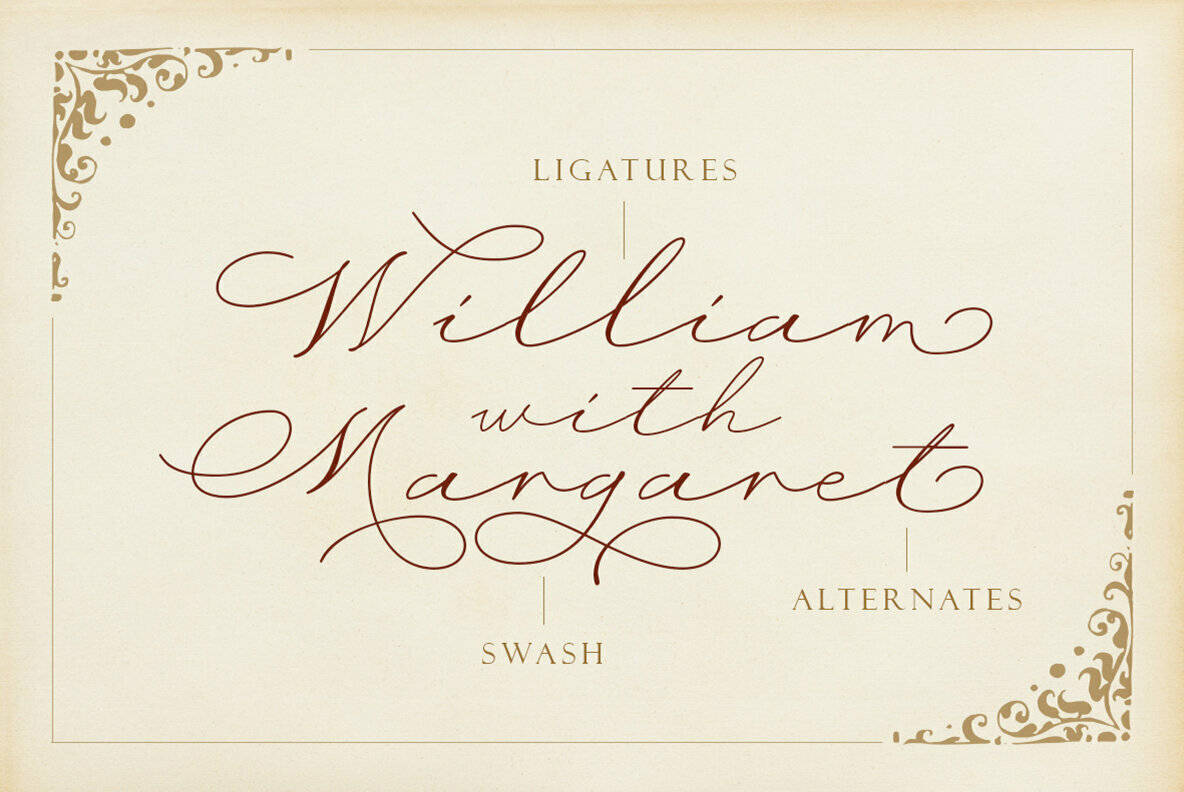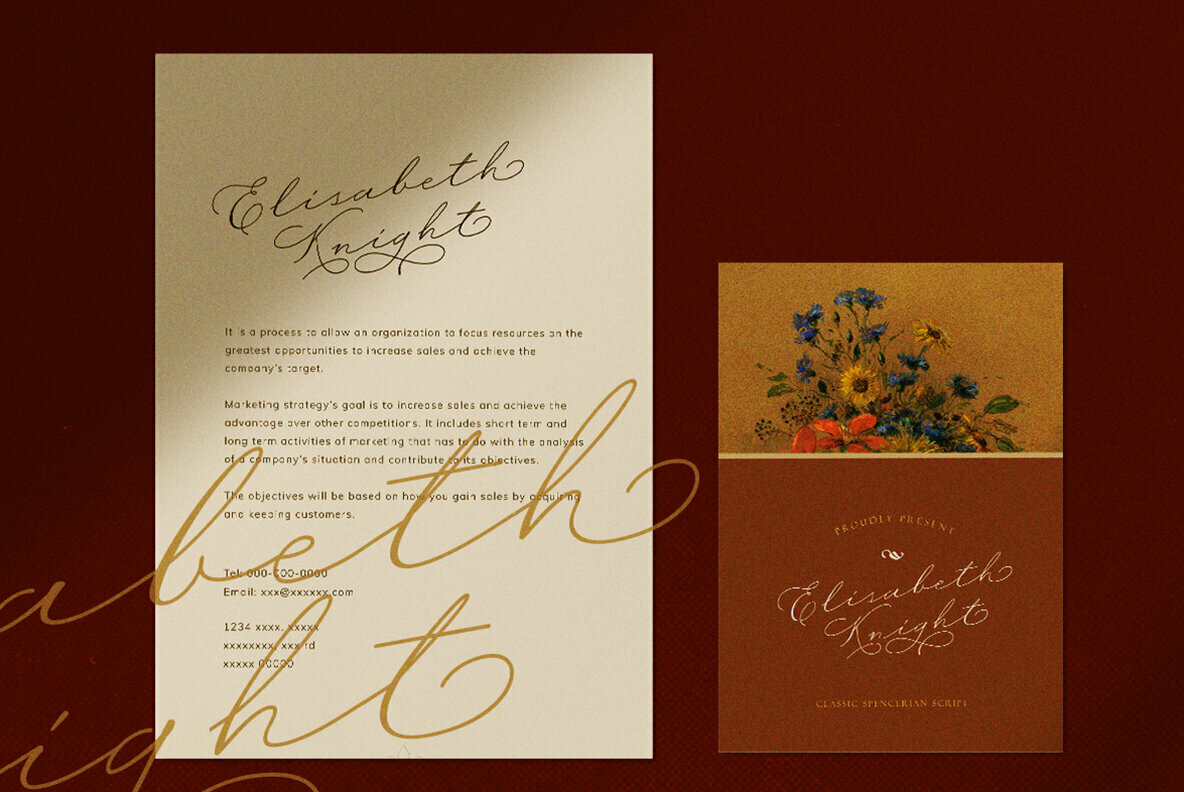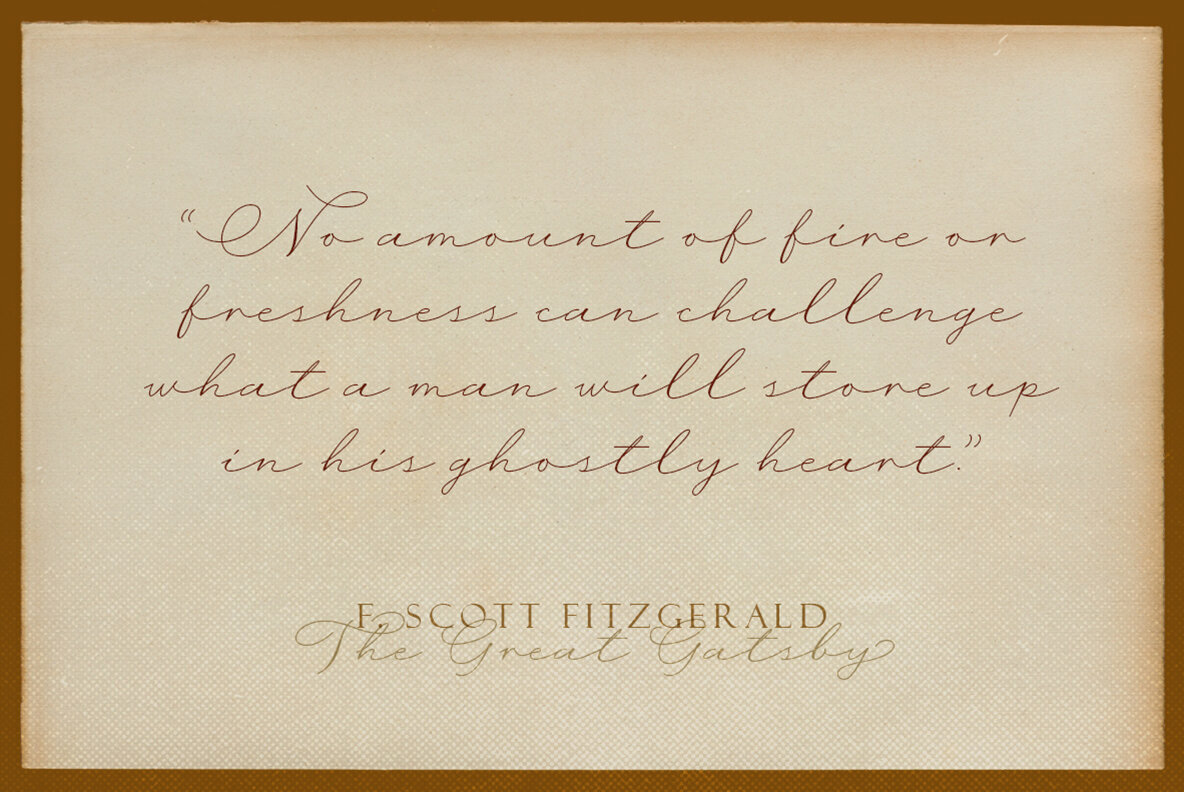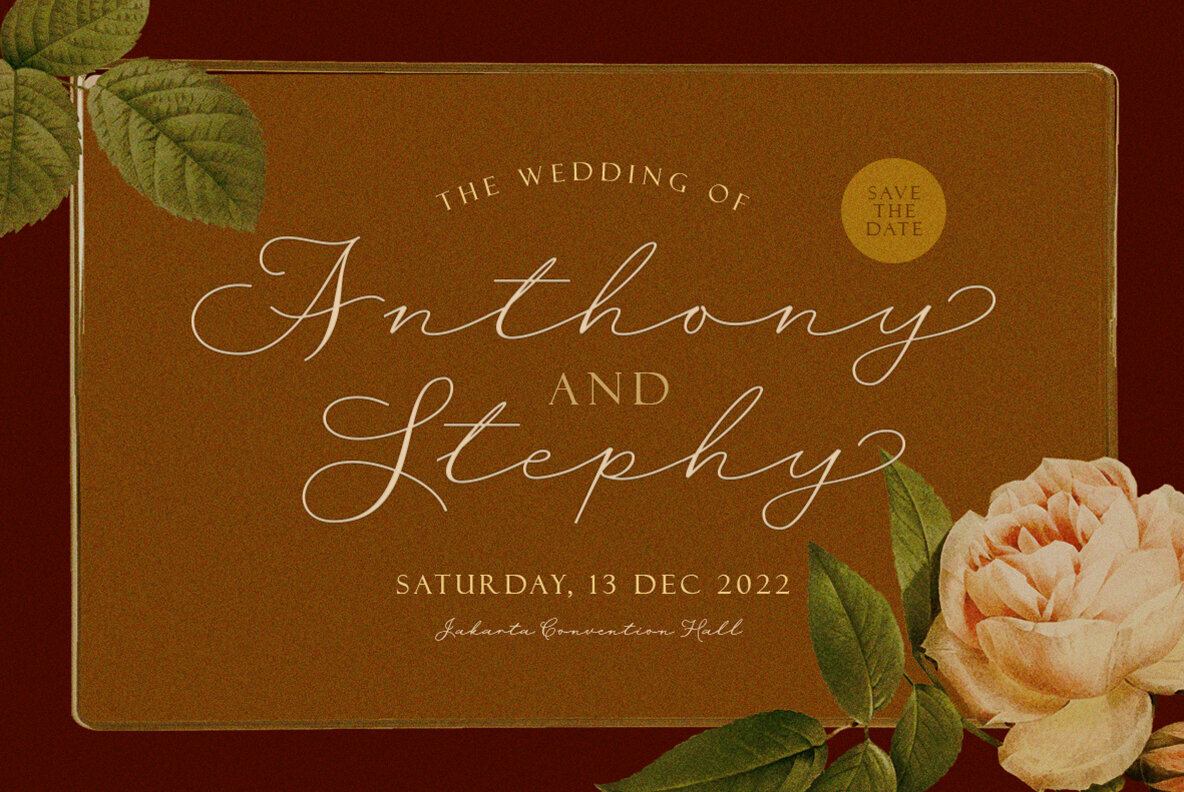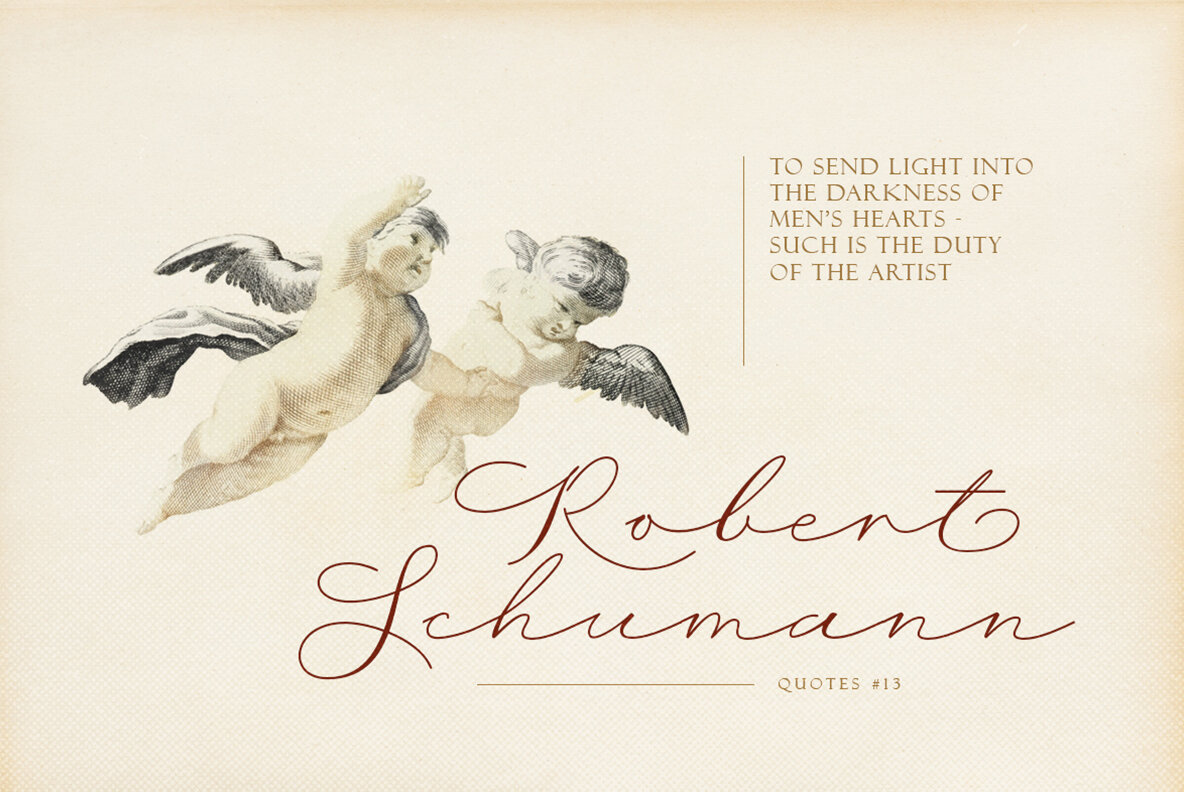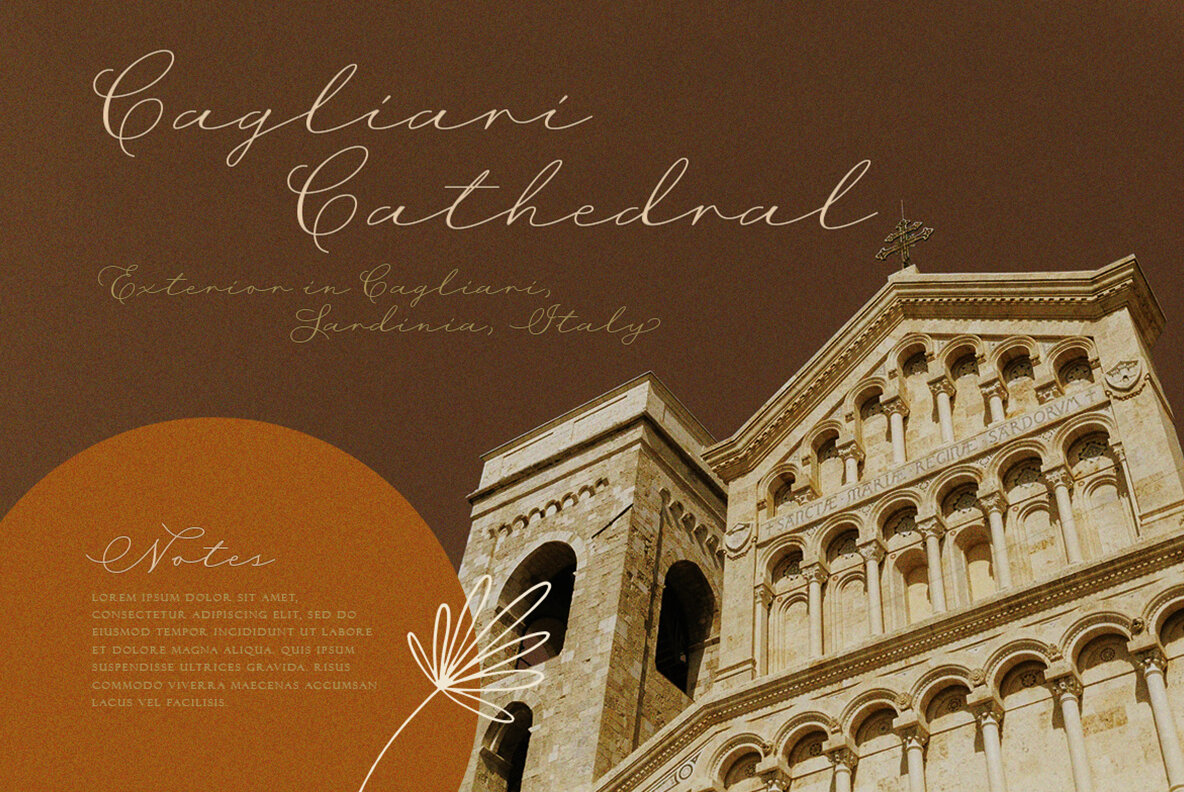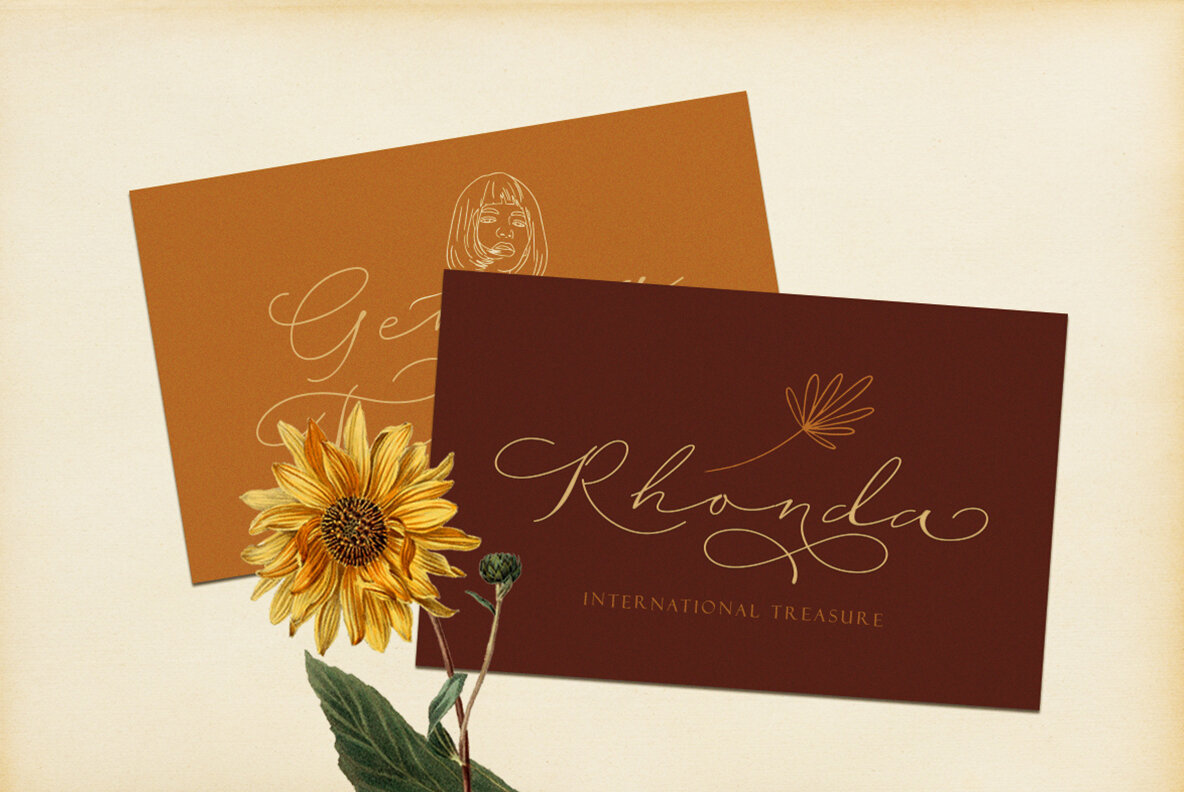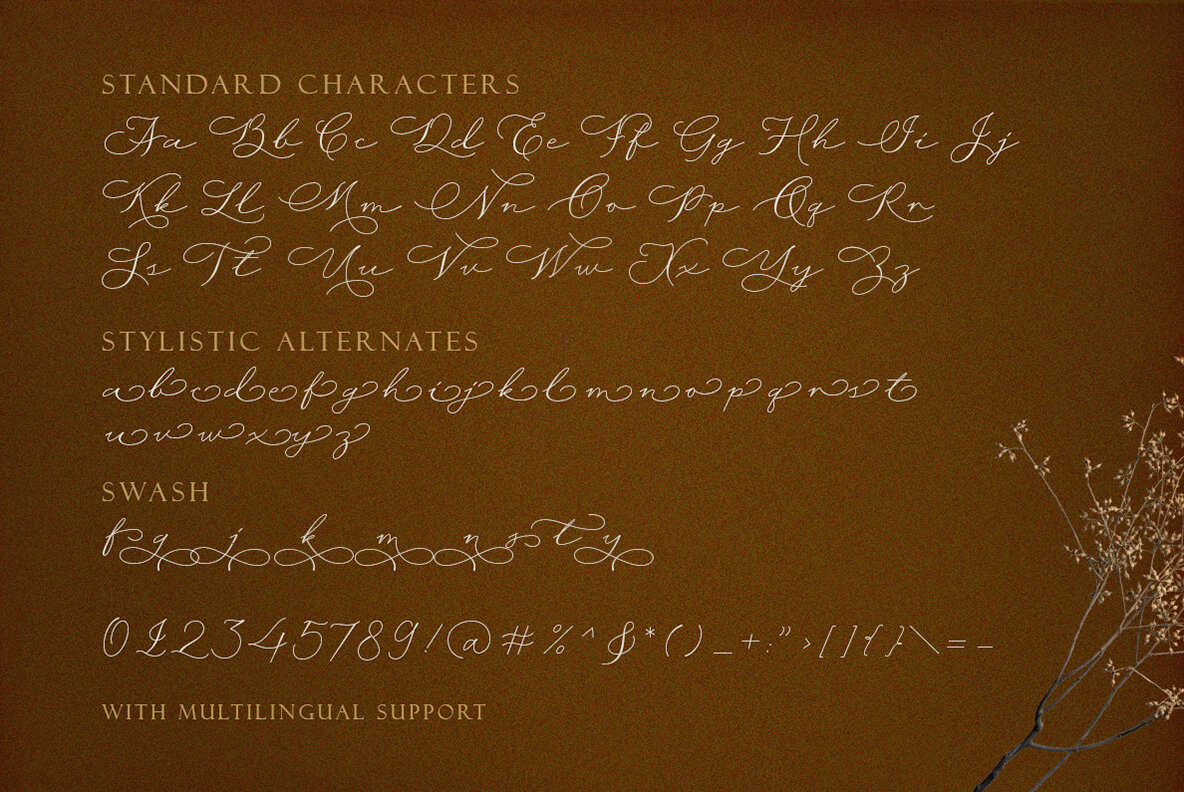
Wisteria Notes Font
Wisteria Notes Regular
Wisteria Notes captures the essence of timeless elegance through its script design, echoing the sophistication of traditional calligraphy. This beautiful font is meticulously crafted to enhance your creative endeavors, whether it's a logo, invitation, or advertising piece. Its versatility shines, especially when applied to formal designs like invitations, labels, magazines, and more.Wisteria Notes: A Classic Script Font